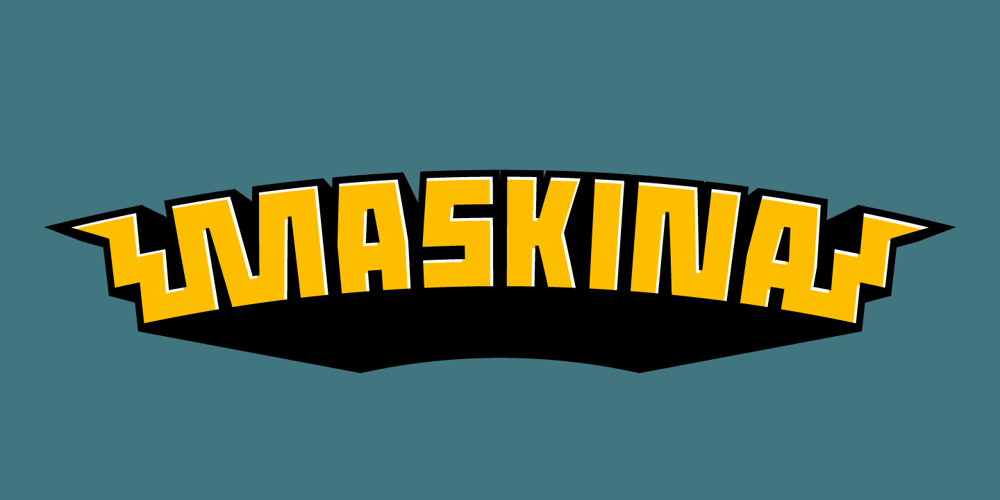
Maskina Font Family was designed by Jakob Fischer and published by PizzaDude.dk. Maskina contains 2 styles and family package options. Maskina is straight out of the future…well, only if you live in 1985! Just kidding, the Machine font was made to look retro futuristic…but with a slight twist of the 21st century. Use this future font for your headlines, logos or perhaps even if you have sci-fi documentary in mind!